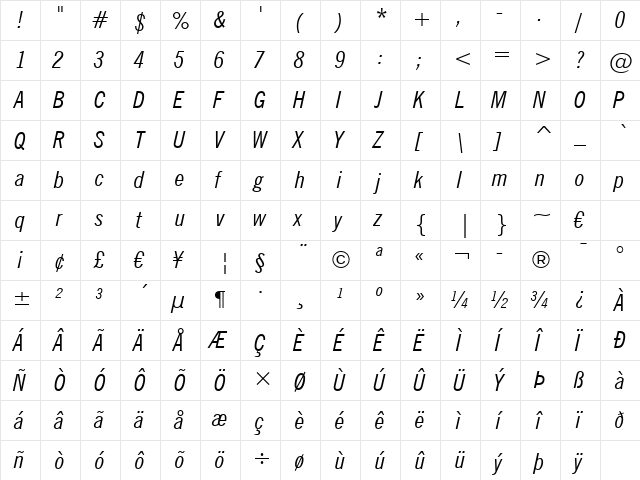
NewsGoth Cn BT Italic Font Preview
NewsGoth Cn BT Italic
Design Context for NewsGoth Cn BT Typeface
NewsGoth Cn BT takes a measured approach to typography — its balanced proportions and neutral character make it a reliable workhorse for both digital and print work. The dynamic lean of this cut emphasises speed and emphasis in any layout.
Pro Tip: Use NewsGoth Cn BT for emphasis, pull quotes, and subheadings where its slanted energy can add rhythm to the layout.